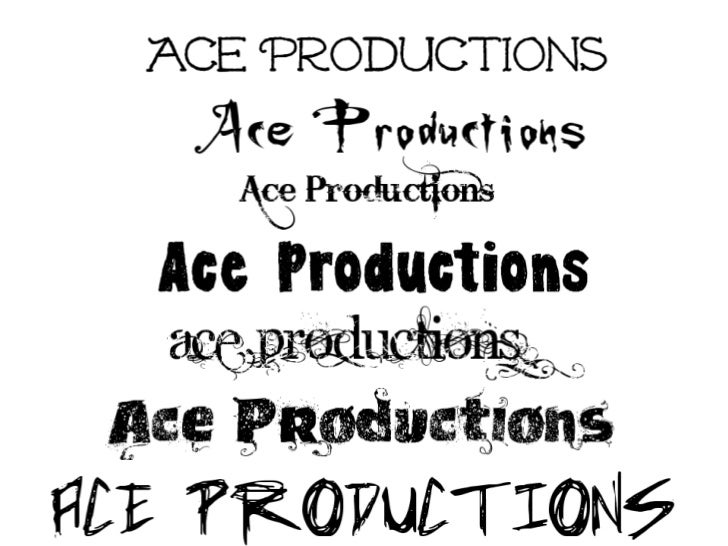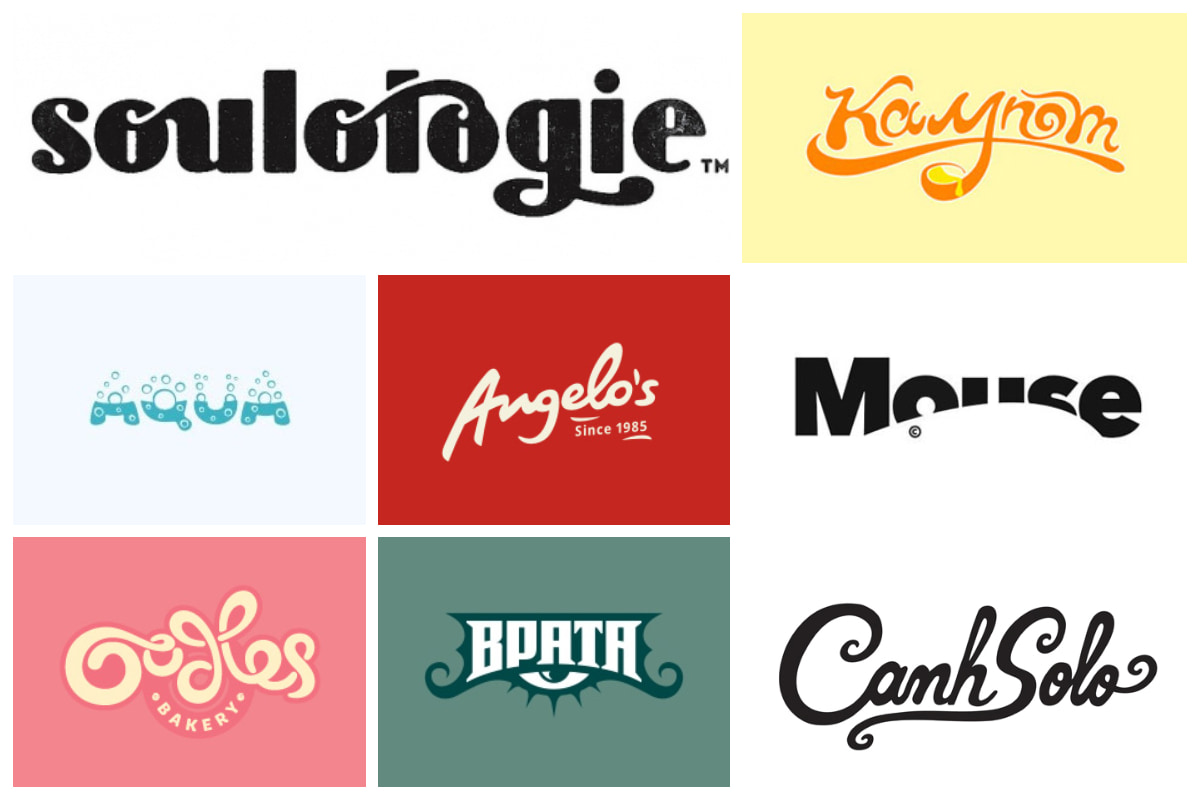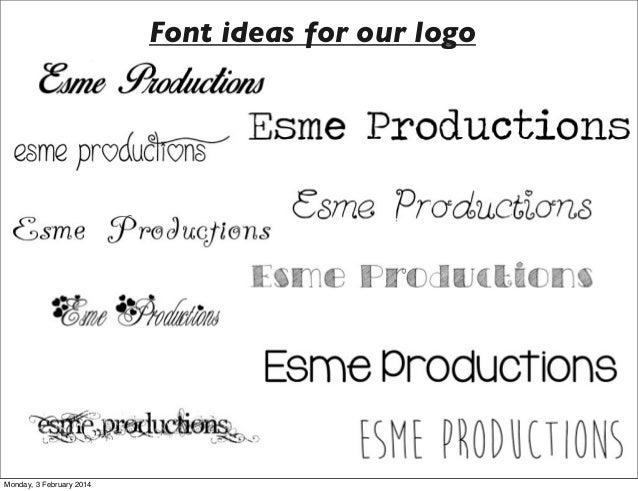
Randrake is a modern logo font that comes with an elegant script design. You can then edit the colors and layout to make a.
Developed by Sora Sagano a designer based in Japan Helvetica influenced this font family.
Logo fonts ideas. With a large selection of cool text designs and art fonts its easy to customize any cool text you want such as word art fancy textual logo design art font logo and many more. For a personal touch choose Natasy a logo font that mimics handwriting. 108 Best Free Logo Fonts for Your 2021 Brand Design Projects.
Microsoft Office and Pages. Tahu is one of the best free logo font designs that has a handwritten character to it. Its easy to see why Teko is a font thats intended to be used for large display text like headlines.
For instance a famous perfume brand like Gucci uses serif font type in their logo while Louis Vuitton chose a San Serif font type. Bodoni The Bodoni typeface surfaced during a time when typeface designers were experimenting with the contrast. In this Business Logo Design collection you can feel how important is sketching and story-boarding.
The 61 best logo fonts and how to pick the right one 1. And in addition to fonts you can use Natasya for posters and other marketing and branding materials as well. The end result is a futuristic font that combines traditional and artistic elements.
Pair one of these free logo fonts with an icon and you are ready to start your business. Helvetica is one of the most used fonts in a variety of graphic designs. This font is ideal for creating logos for luxury fashion and clothing brands.
Modern logo concepts and creative logo ideas for your inspiration. This is the 89th roundup of logos featuring unique modern design logo templates created by professional graphic designers. Yet its commanding and modern enough to make a great tech or skilled trade logo.
2 days agoModern logo concepts and creative logo ideas for your inspiration. Here is the collection of Logos from Dribbles best logo designers. TT Norms works equally well both in large text arrays or in headlines and is the one the indispensable.
The spaced lettering of the Khula font in this logo really emphasises the text. Randrake is a modern logo font that comes with a stylish script design. You can also mix and match different glyphs and stylistic alternates to fit your brand.
This is the 89th roundup of logos featuring unique modern design logo templates created by professional graphic designers. This font is ideal for crafting logos for luxury fashion and apparel brands. This is a design of font that can be used for both personal as well as for commercial projects.
The characteristics of a great logo is that it has a unique concept with a strategic use of elements such as fonts colors lines and shapes. The serif and geometric styles keep it attractive and readable. TT Norms Pro is a geometric sans serif that features classic type character proportions.
Brolink Sci-fi Logo Font. The thin lettering of Cormorant has. You can download the beautiful sans-serif font known as Aileron for free.
Mike Sans Square Logo Font. You have complete freedom to decide how you wish your brand to be perceived and which font type will help it carry the right ambiance. From ligatures to swash.
Here Is The List Of 50 Logo Fonts Every Designer Should Know About 01. The unique design of the characters will make this font fit in well with both digital and print designs. Its compatible with Adobe Suite Keynote.
This font has excellent readability and is. Fenway Bold Logo Font If you are wanting a bold prominent and adventurous font for your brands logo take a leap of faith in Fenway a clean script typeface that is all about class style and elegance. Yet still yielding an overall art deco influenced.
This is not a single font but a family of old serif typefaces. A logo design is a powerful marketing tool that helps in brand building and brand promotion. Kelly slab is a square slab serif with uniquely angled strokes.